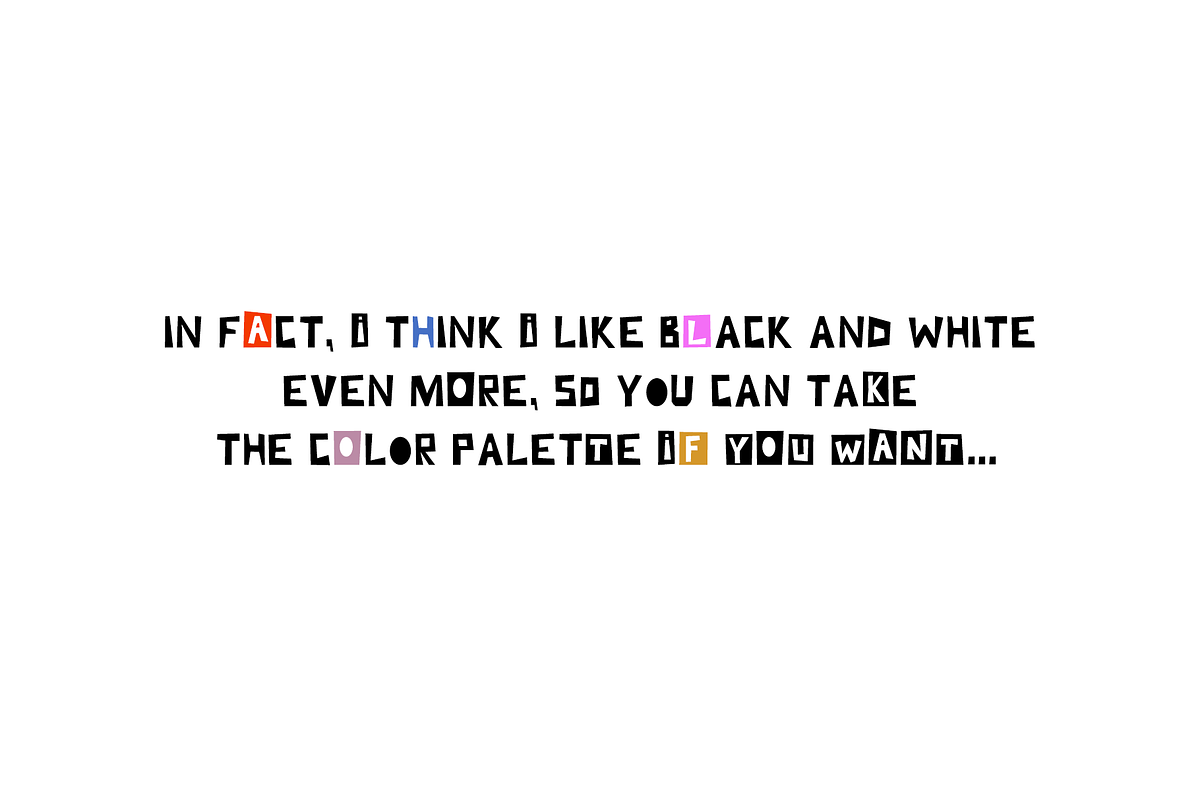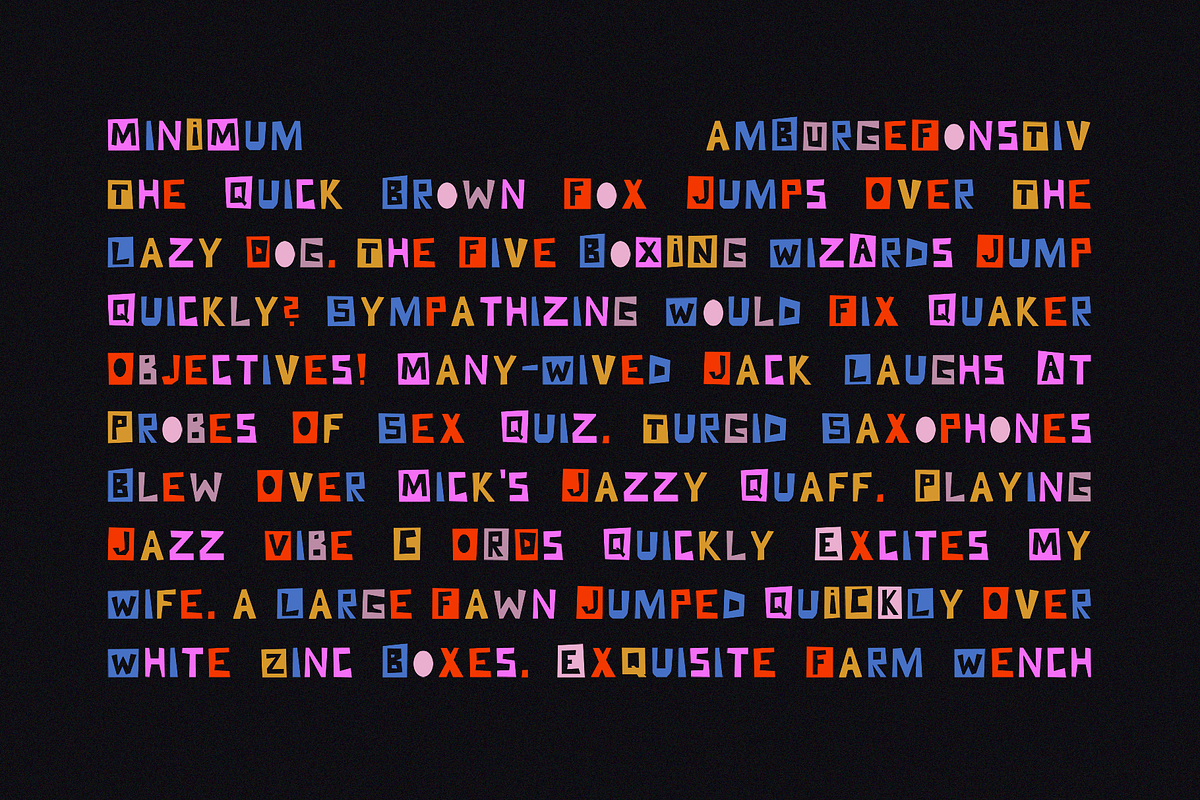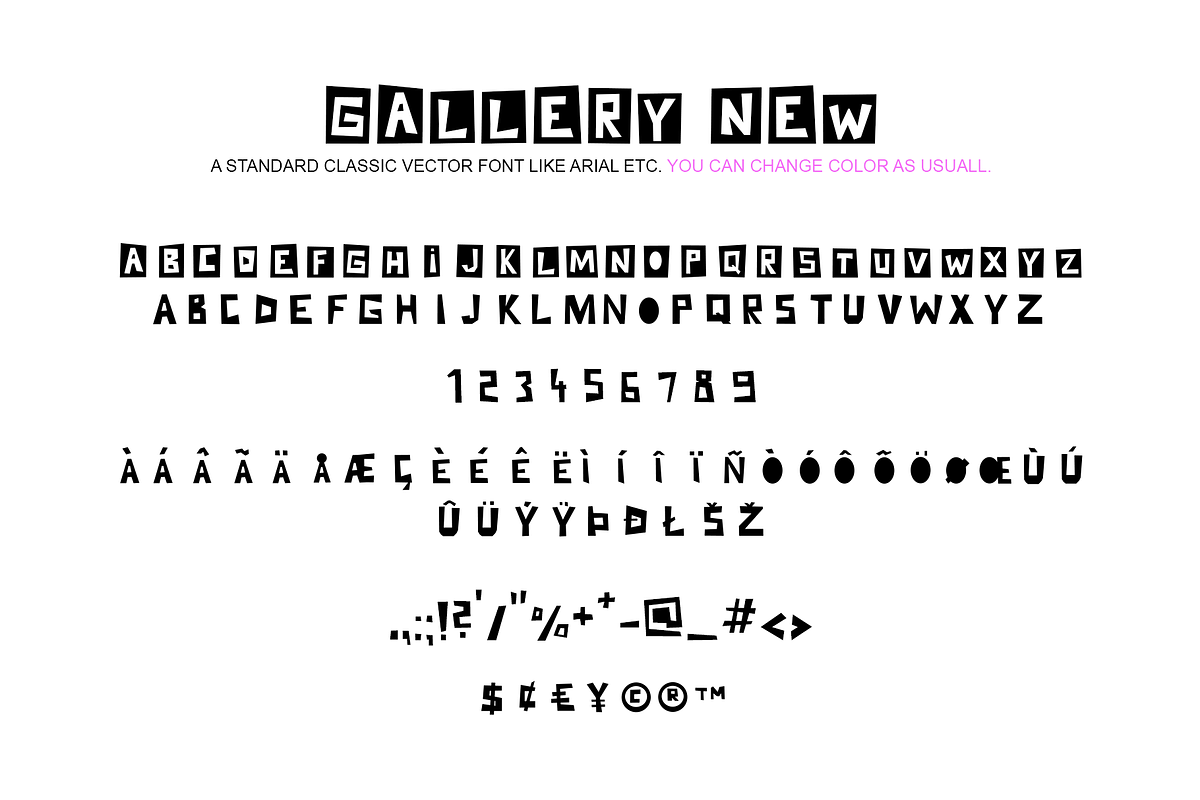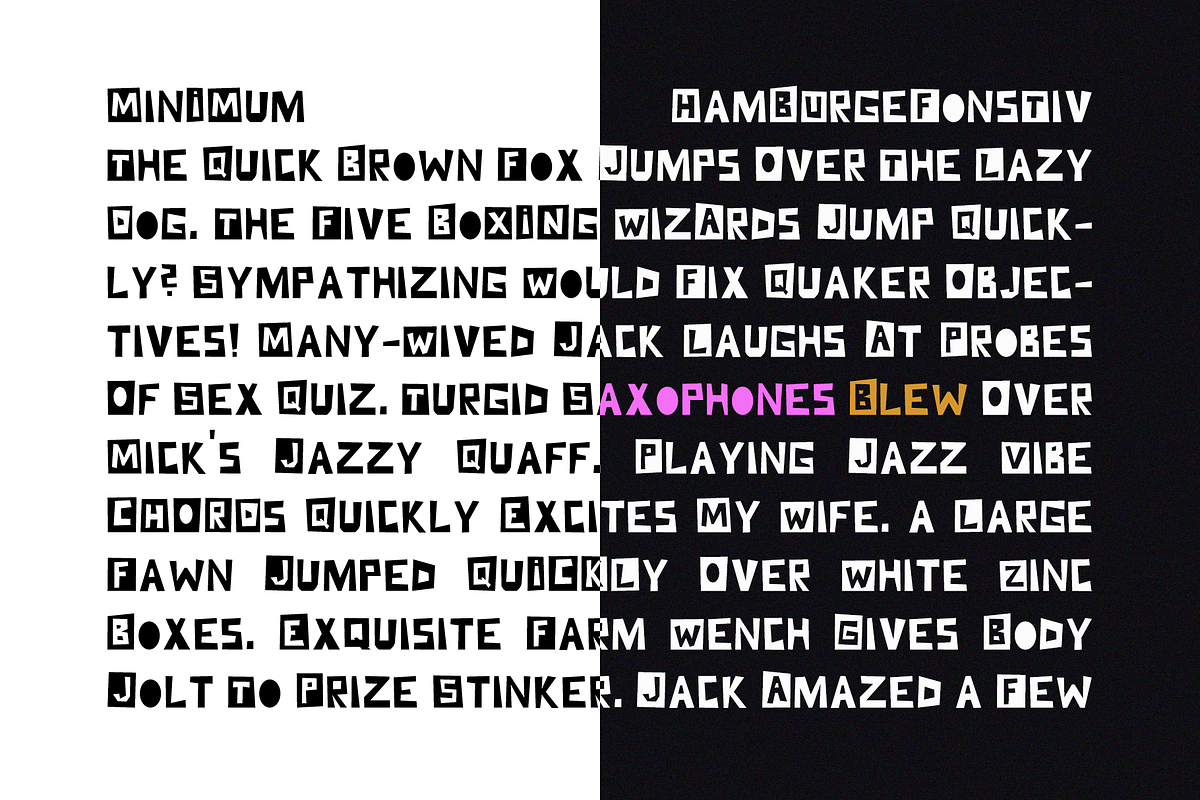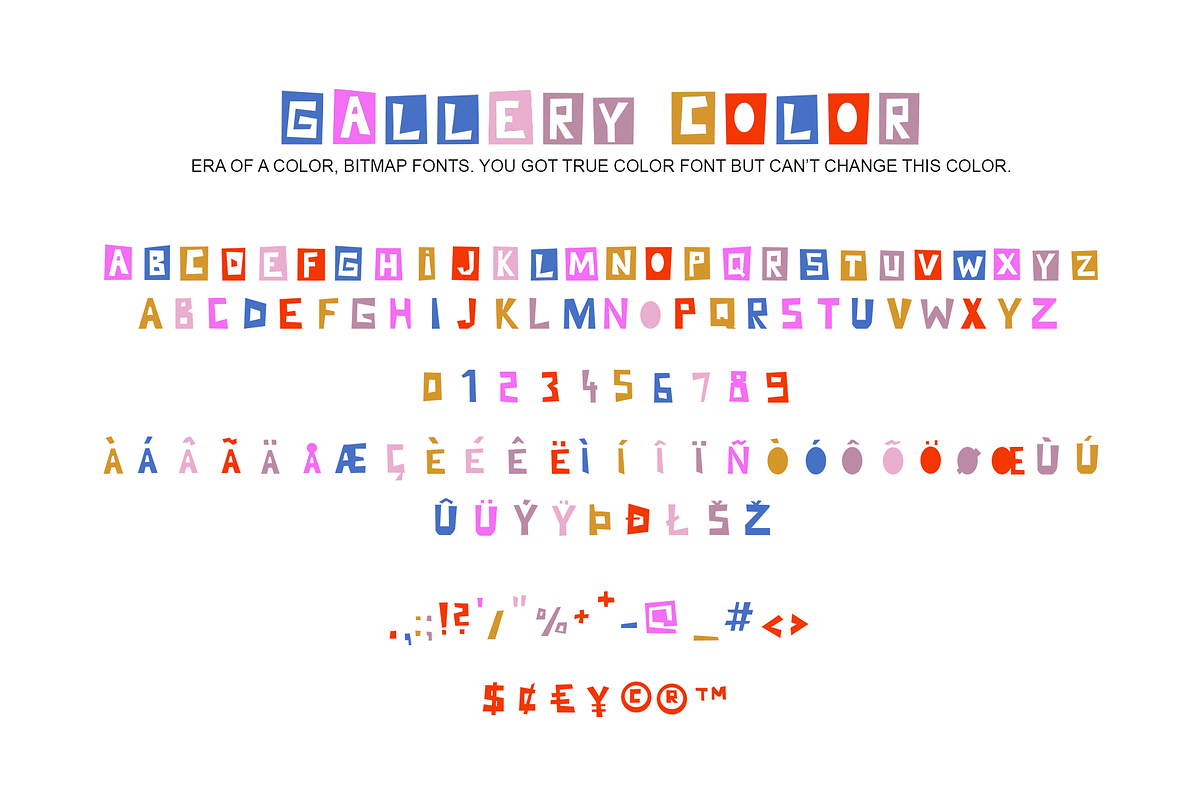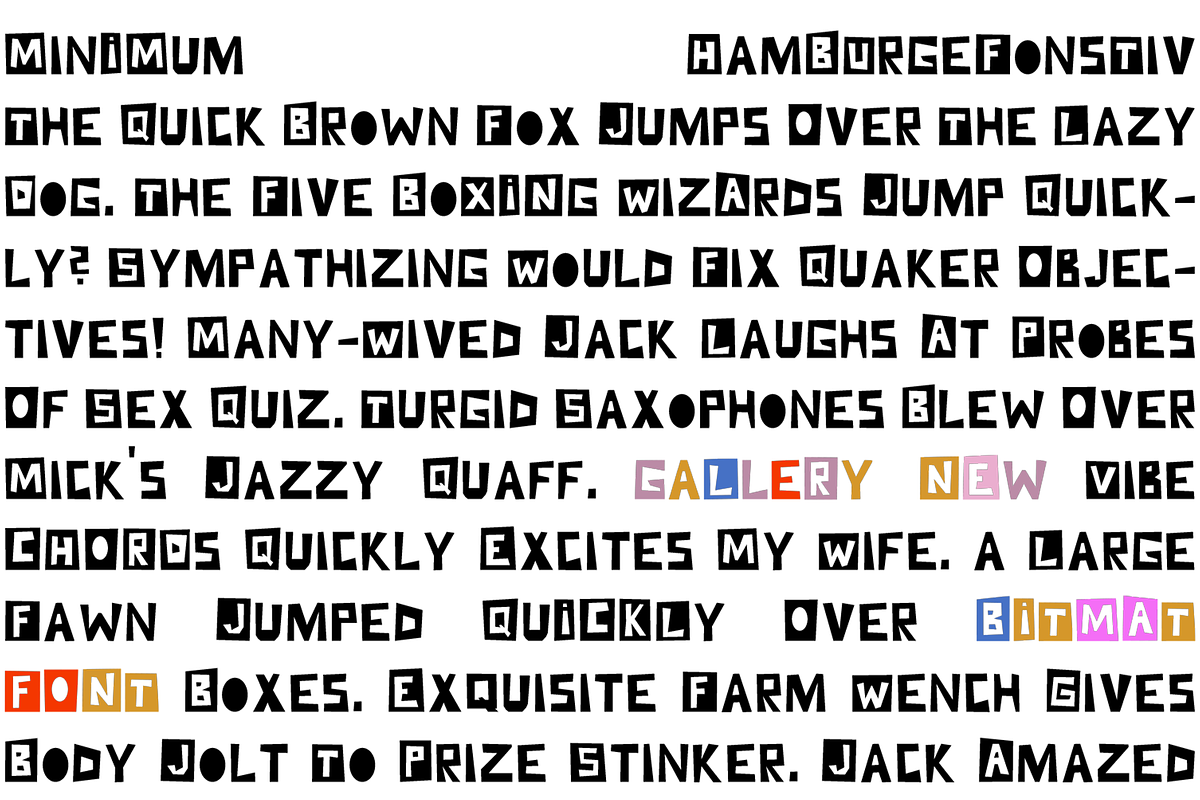
Paper Cut Out Color Bitmap Font
Hello, in opposite to all my bubbly lettering, this time I created imperfect squared font. AND IT CONTAINS COLOR! But, for the first of all I'm crazy about handmade look 2.0 of a digitals so I hope you also gonna like it.
- OTF Gallery New Font (The black one, standard vector font like an all the well knew old fonts).
- OTF Gallery Color Bitmap Font (New technology of color fonts. More below.)